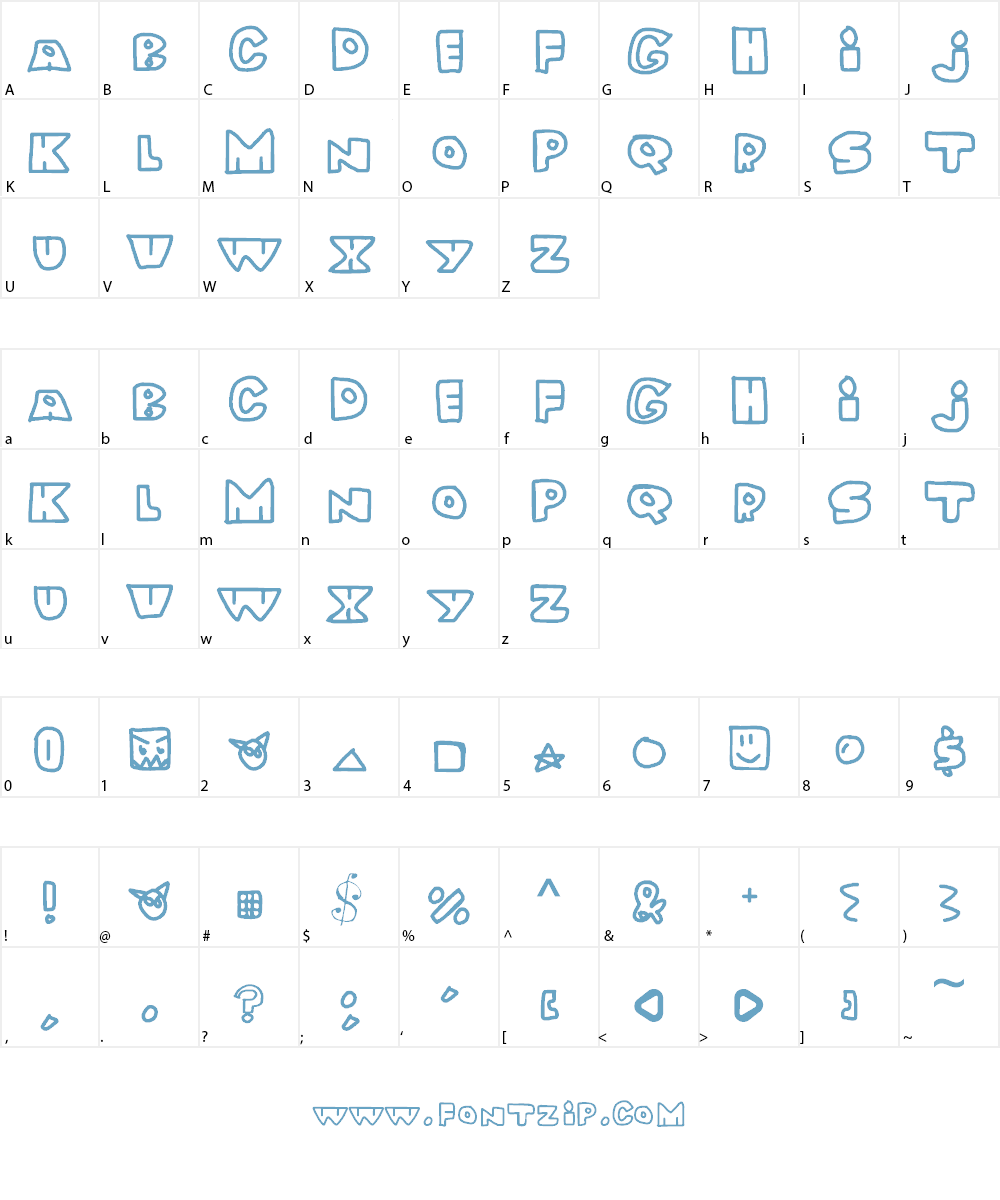
This is Insider...
my first cartoon font...
Update: All glyphs "simplified", glyph additions in as well as the plus sign, and fixed lowercase "o".
Note: This font has been renamed "Fonty Insider" to prevent confusions with the fontstruction of the same name that is found on DaFont and Fontstruct.